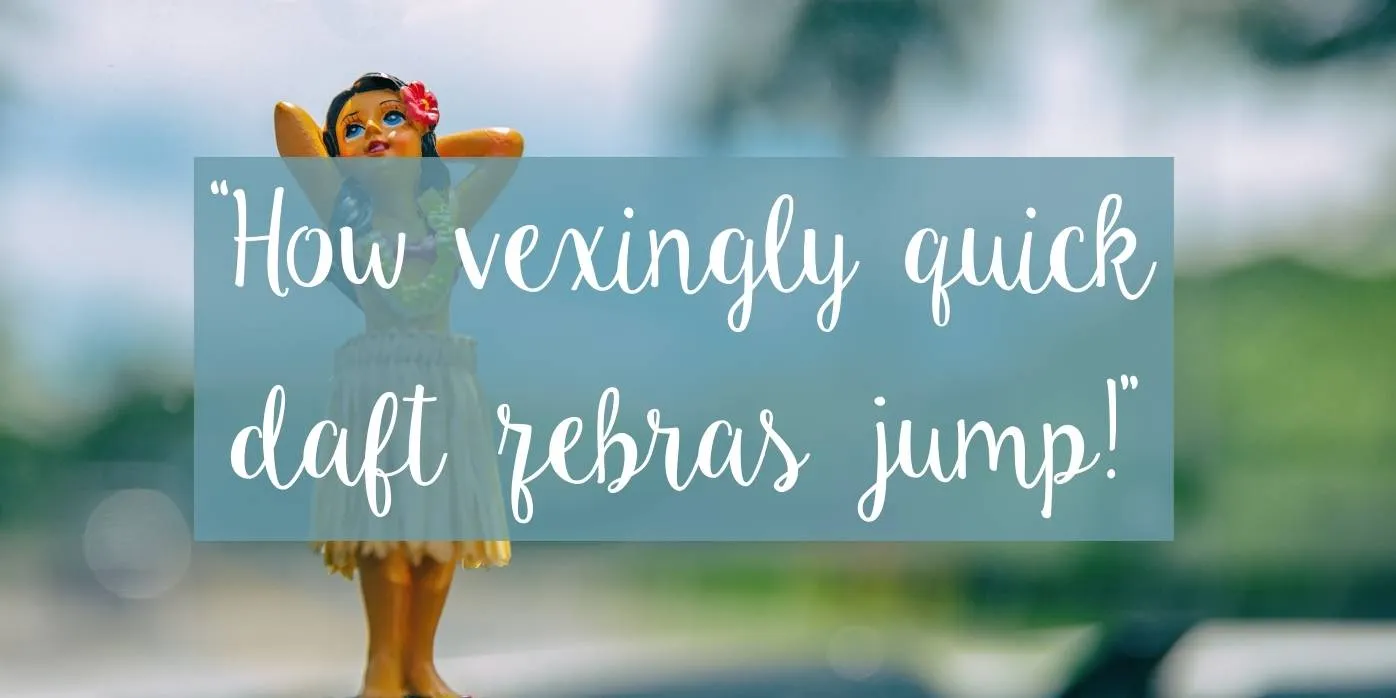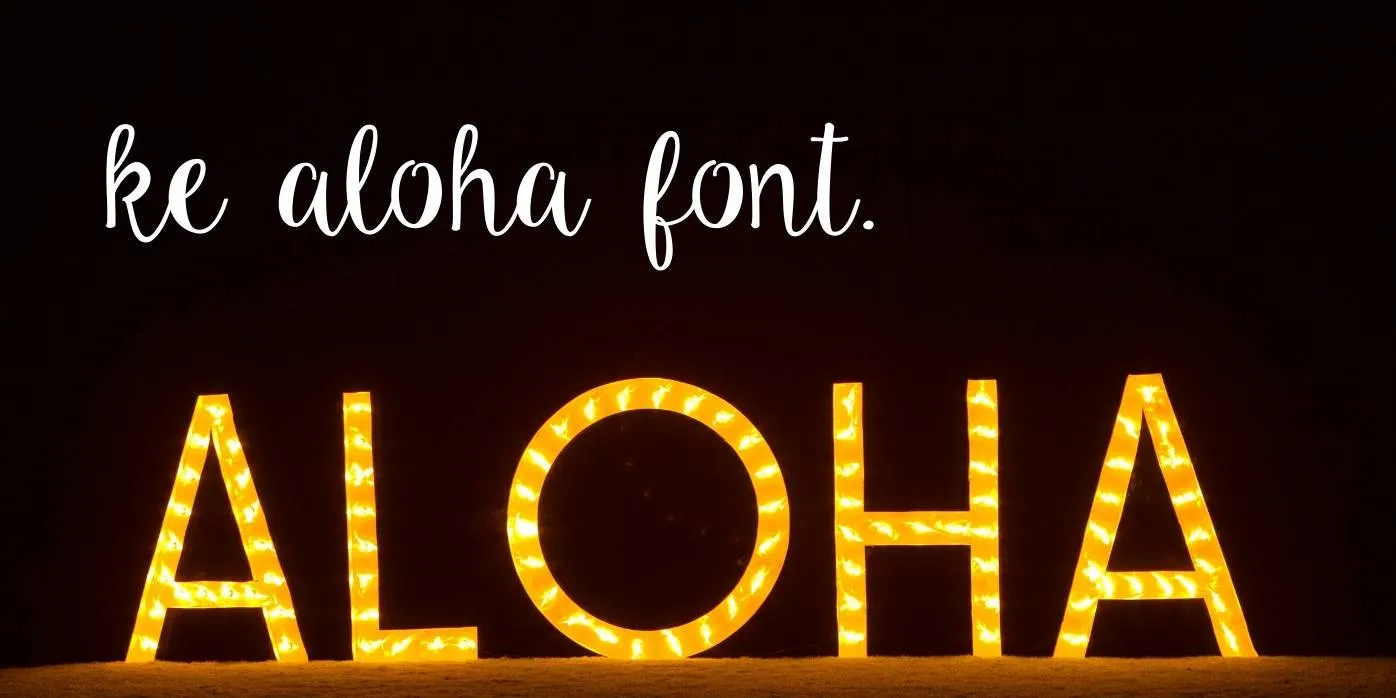
Ke Aloha Font
Here we are presenting a new very famous and popular font family that has massive fame In the industry known as ke Aloha Font. This staggering font family belongs to the Script typeface. This cozy typeface was designed by a very famous and excellent designer named Emily Spadoni. This awesome font was released in the year 2017.
This tremendous font has neat and clean textures. This attractive font is available in various types of Hand-drawn elements almost equal to Fifty. This special help in different interest projects and make these plans soo much amazing. Sacramento Font is one of the most alternative fonts to this classy typeface.
By using this stunning font you can easily convert your designs into various shapes and shadows. This fantastic font comes in many special characters like symbols, numerals, icons, punctuations, and many others. By using its tool generator you can easily convert your simple text into graphics designs accurately.